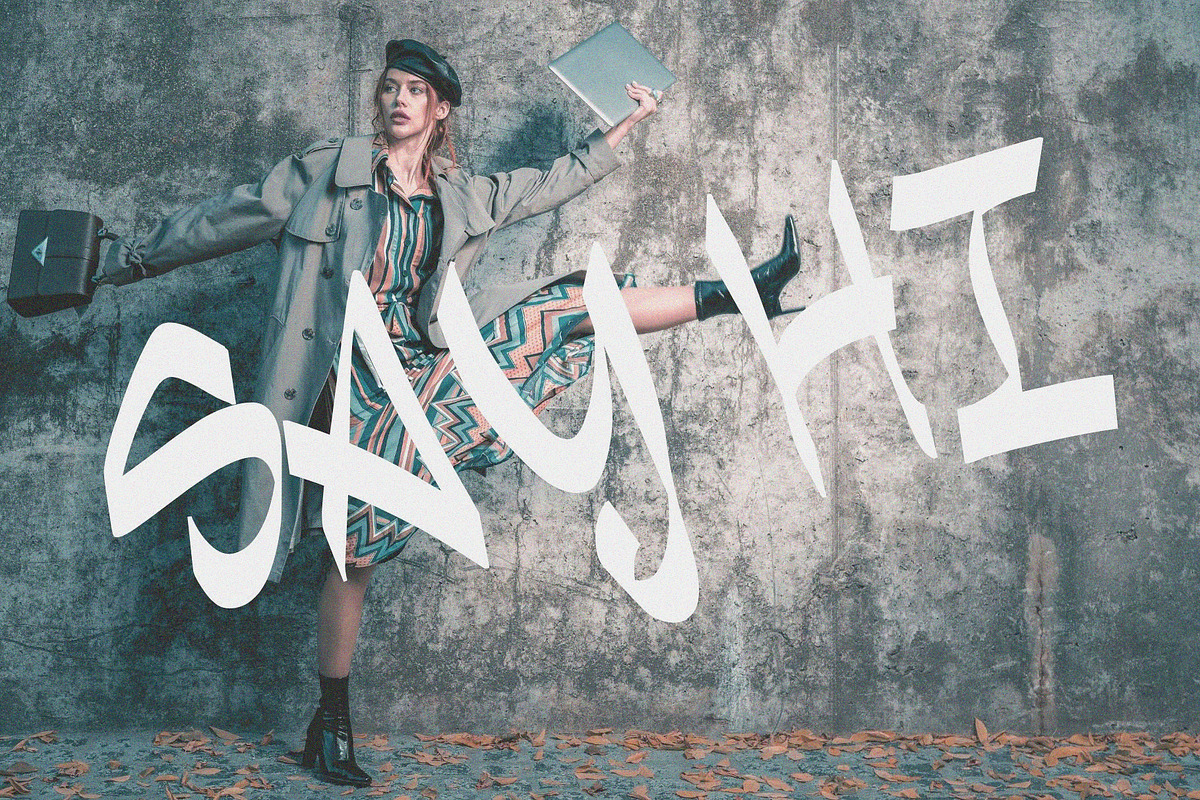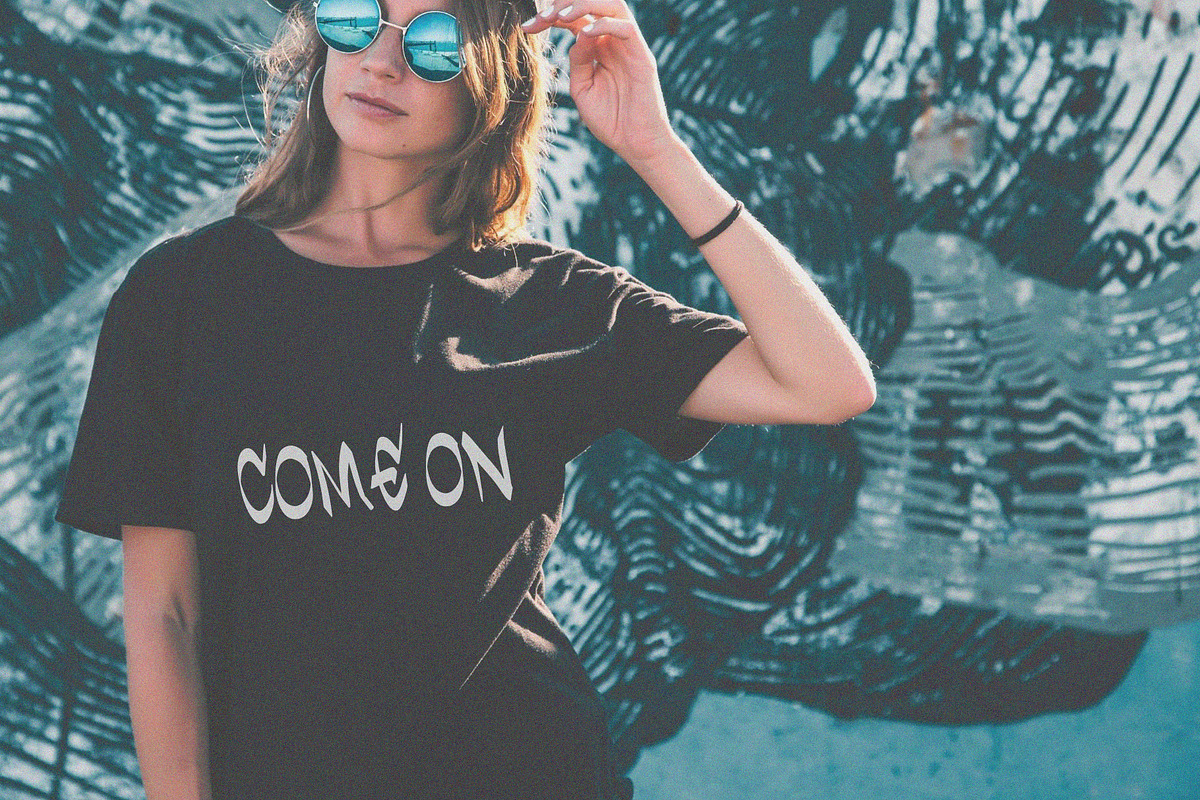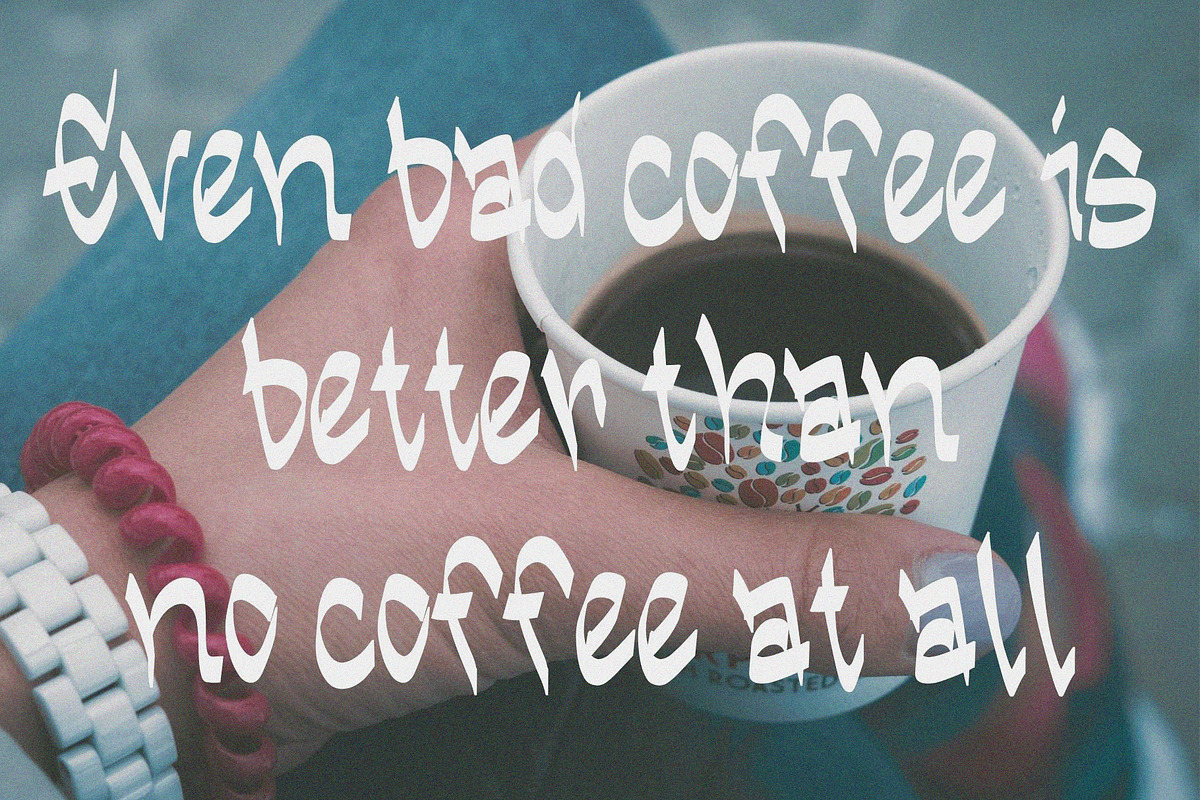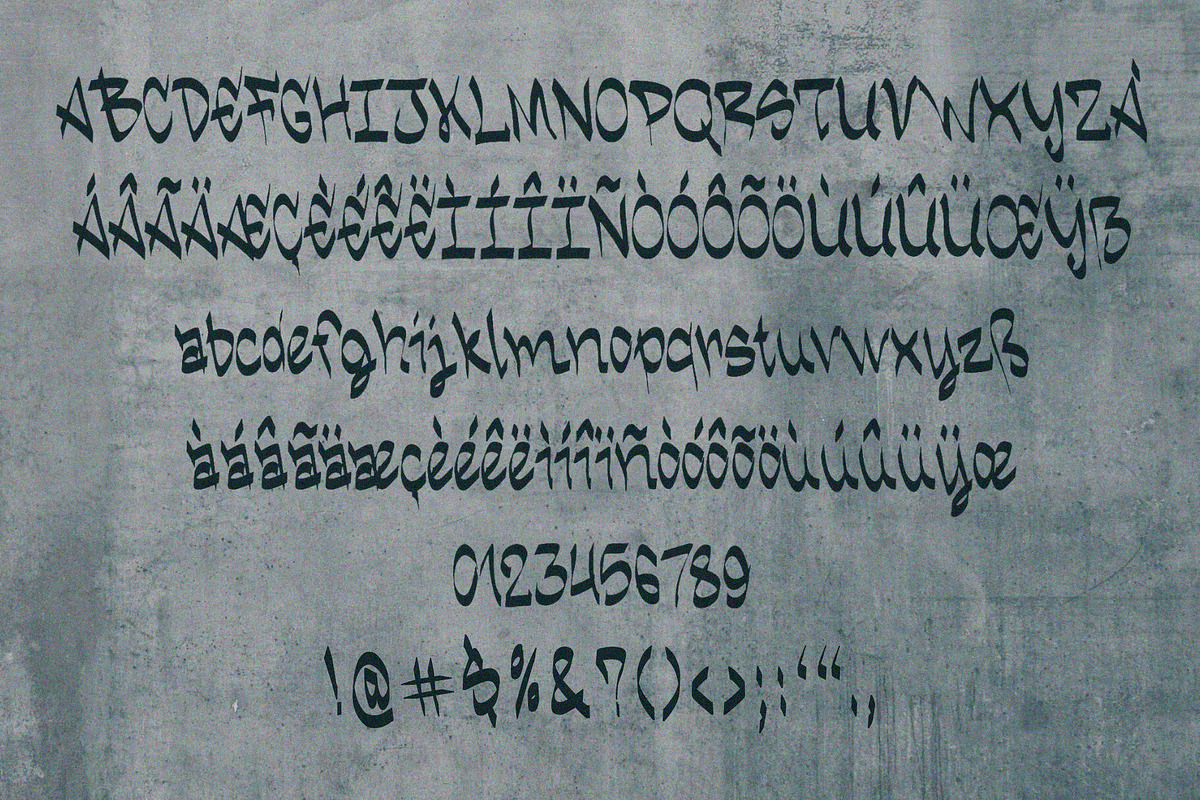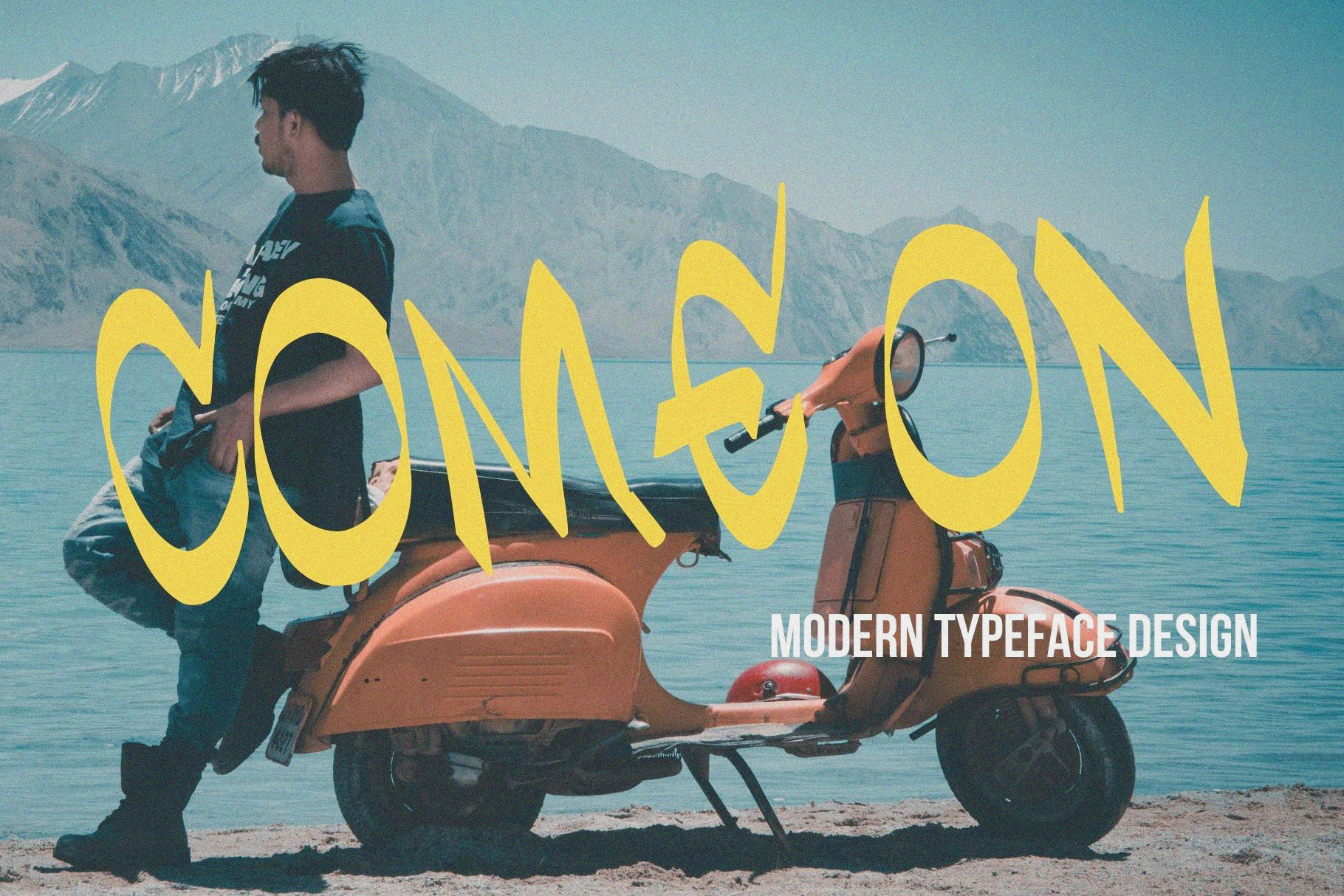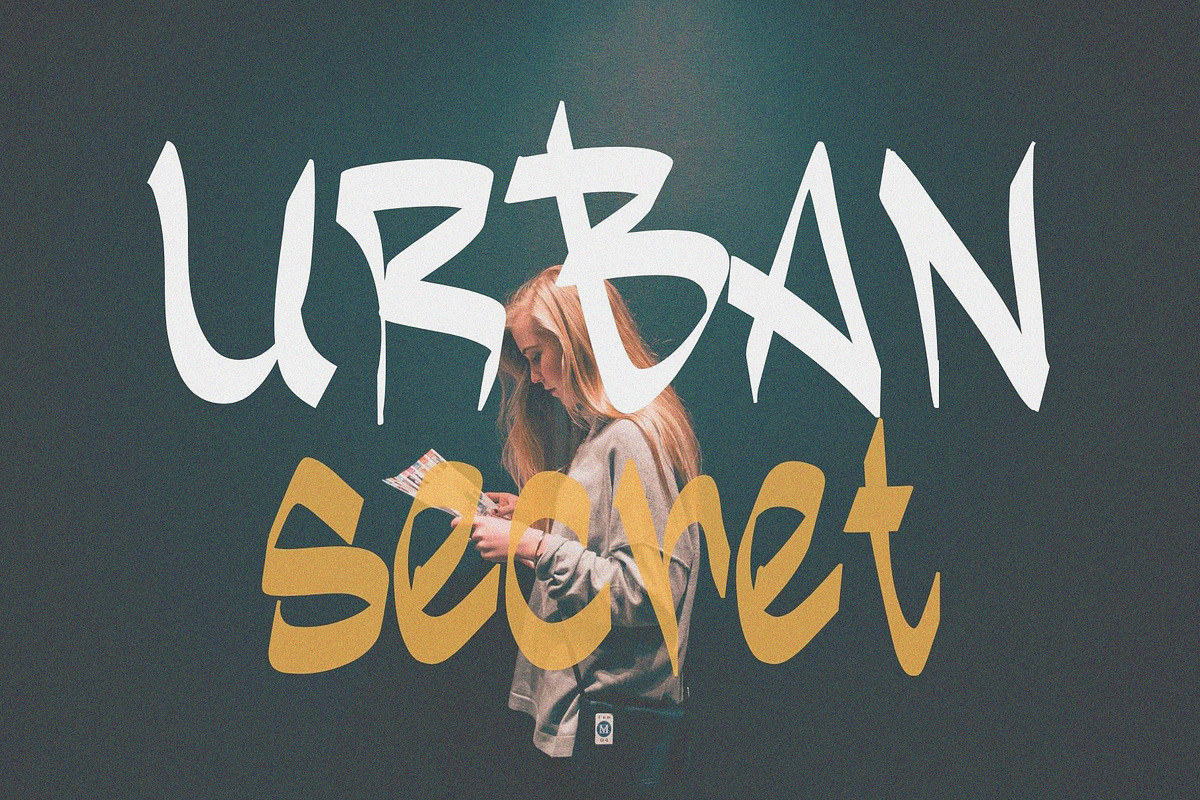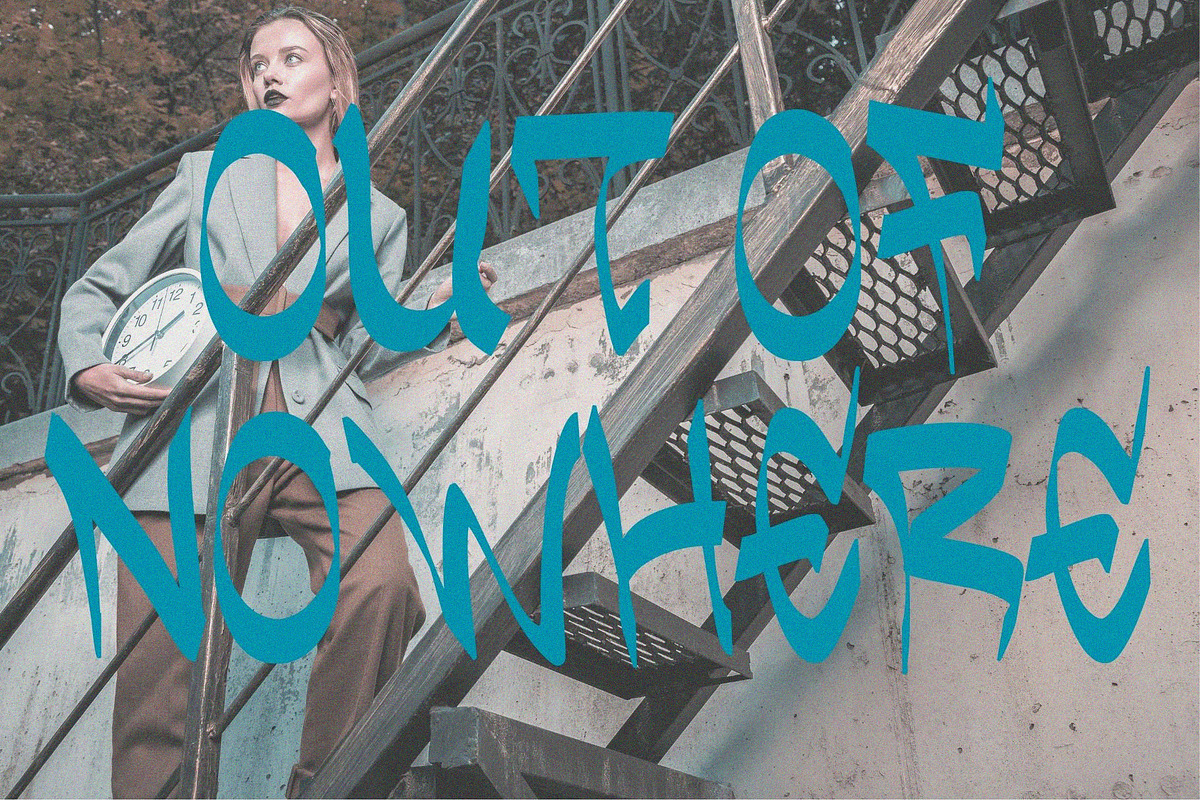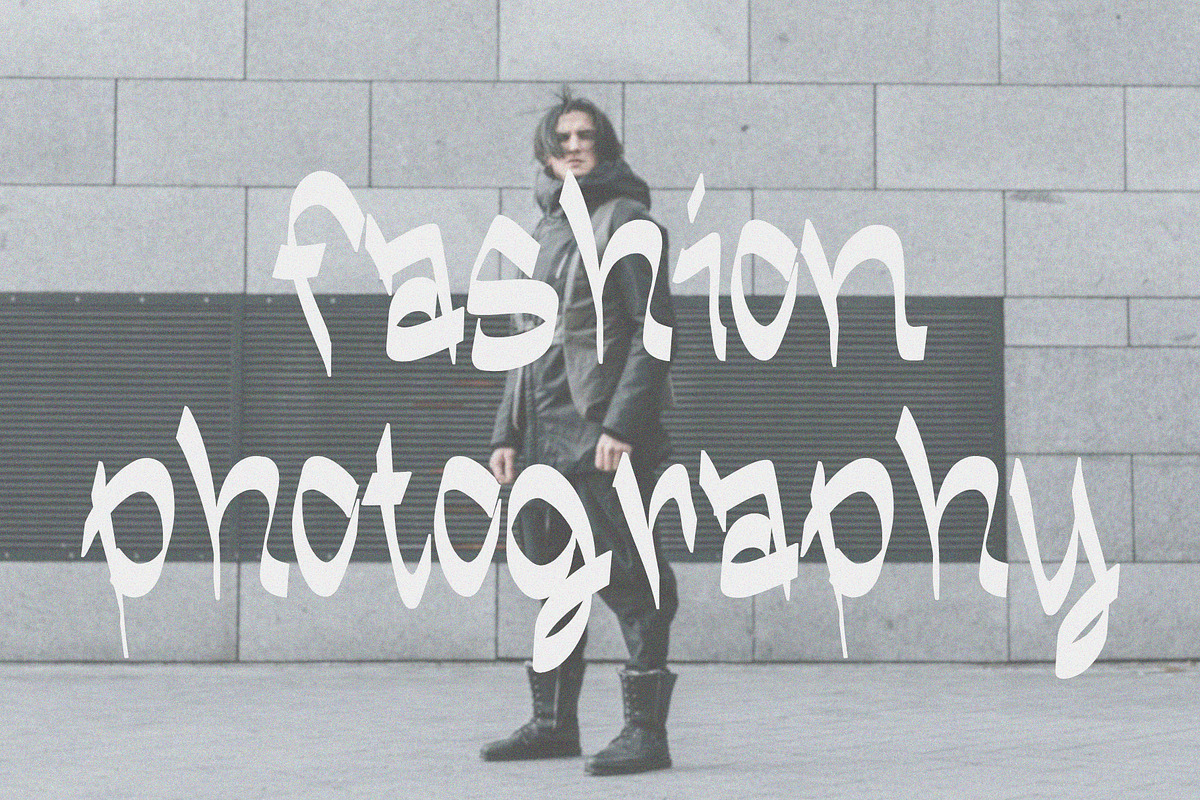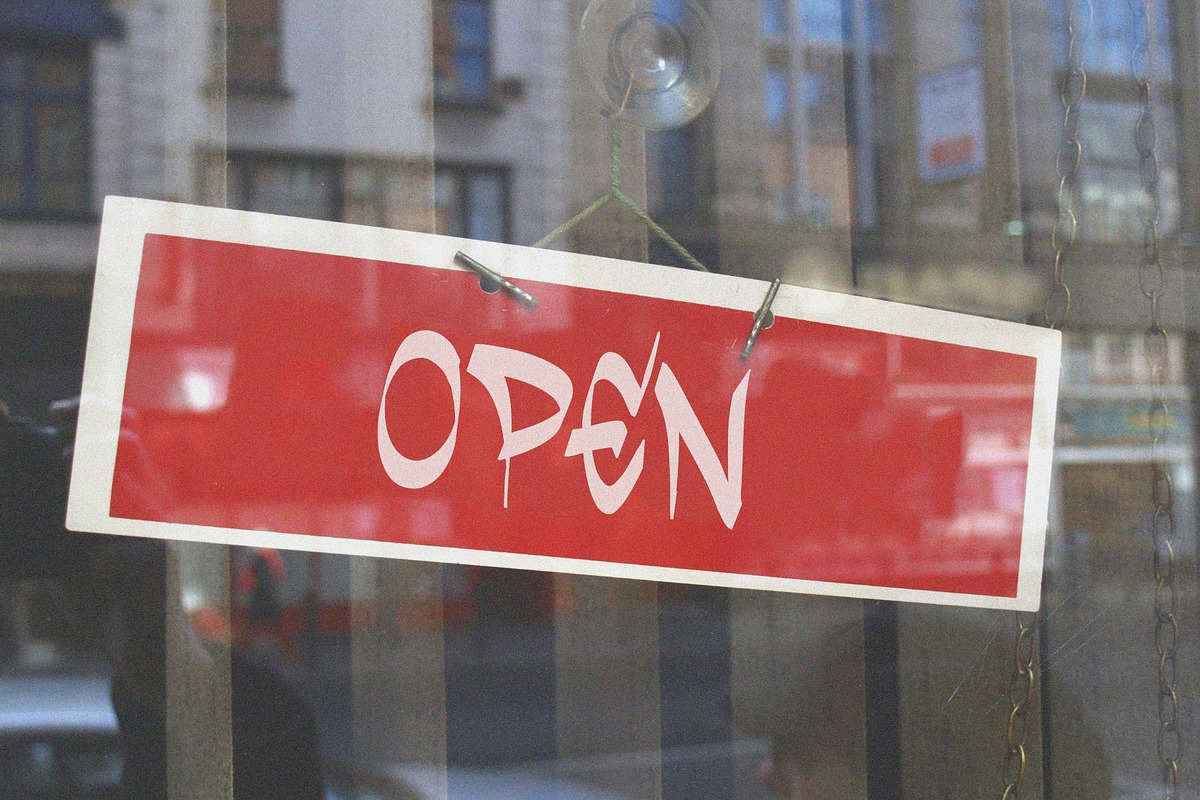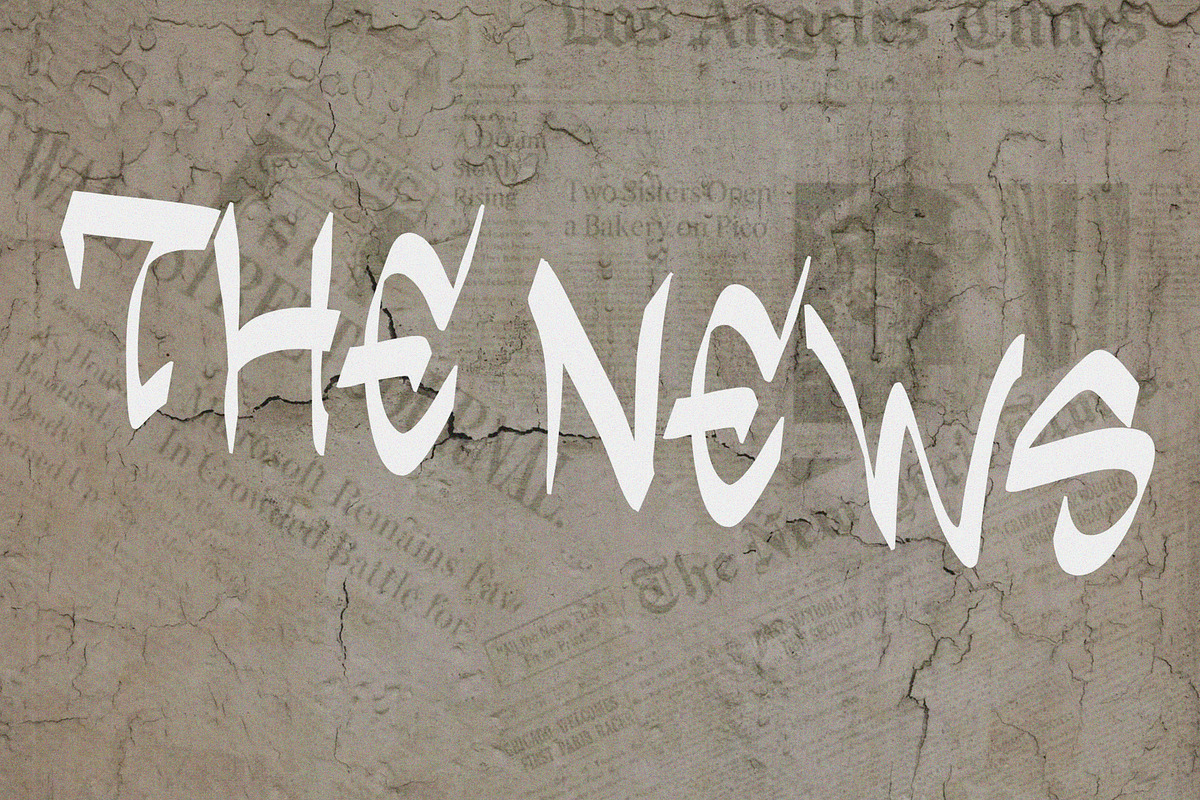
Come On Modern Font Design
Perfectly suitable for numerous uses such as digital note-taking, digital planners, quotations, banners, logos, product packaging, titles, headers, menu lists, etc.
Notes- This fonts include capital/lowercase letters and basic symbols.